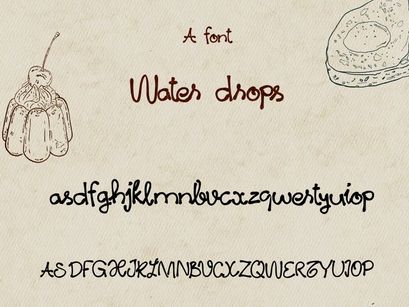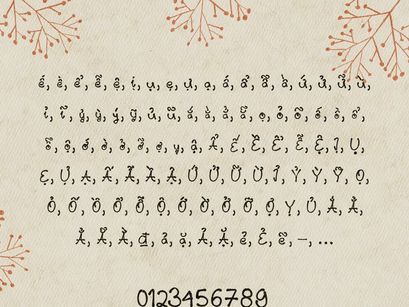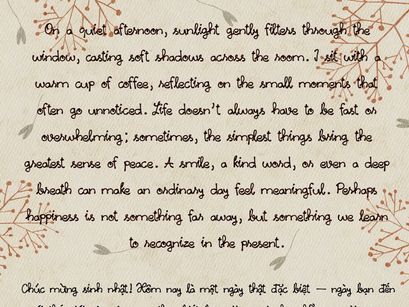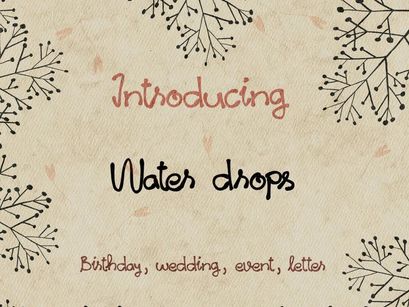
Water Drops – A Fresh & Fluid Handwritten Font
Water drops is a bold, hand-drawn sketch font that captures the raw energy of quick pencil strokes and creative drafts. Inspired by rough sketches and spontaneous linework, this typeface brings a natural, imperfect charm that makes your designs feel more human and expressive.
Perfect for branding, posters, social media graphics, packaging, and creative projects that need a unique handcrafted touch. Water drops stands out with its textured strokes and dynamic character, making it ideal for eye-catching headlines and artistic compositions.
Features:
– Uppercase & lowercase letters
– Numbers & punctuation
– English, Vietnamese support
– Unique hand-drawn style
Whether you're creating edgy street-style visuals or modern artistic layouts, Water drops adds personality and authenticity to every project.